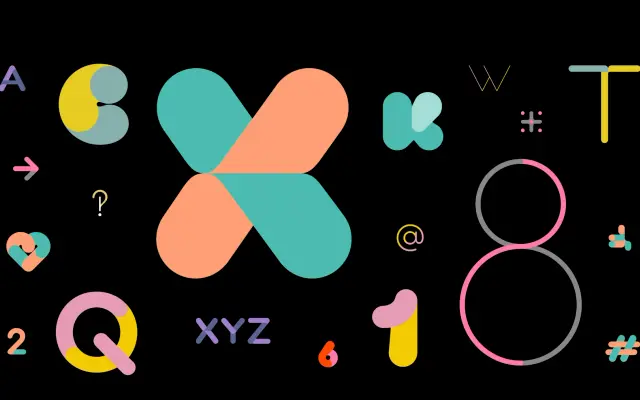
Hamster
A two-tone variable colour display font by Joe Stitzlein, released in multiple chromatic subfamilies each named after its colour pairing.
Designed by Joe Stitzlein and released by Fontwerk in 2023, this display typeface uses variable colour font technology to produce two-tone letterforms across six named subfamilies including Barbecue, Lavender and Gray Pink. Each subfamily ships with the same weight range from Thin to XBlack, giving designers tonal contrast and weight variation in a single typeface. Suited to posters, packaging and editorial headlines where strong visual personality is the brief.
A two-tone variable colour font with multiple chromatic subfamilies named after colour combinations; designed purely for display and expressive use rather than text setting.